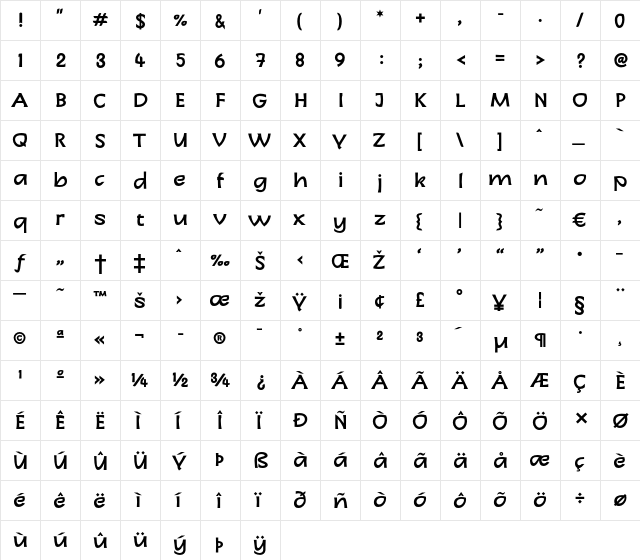
LinotypeCharon SemiBold Regular
Design Context for LinotypeCharon SemiBold Typeface
LinotypeCharon SemiBold offers clean, dependable letterforms without strong stylistic allegiance, making it a practical choice for designers who need flexibility. Its bold stroke weight gives it real presence on the page.